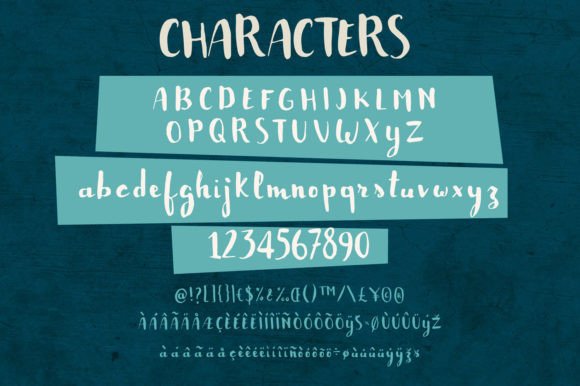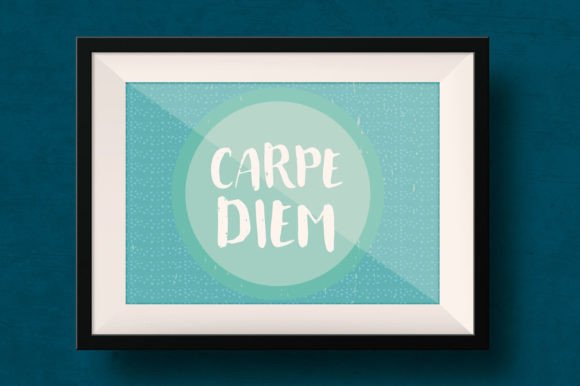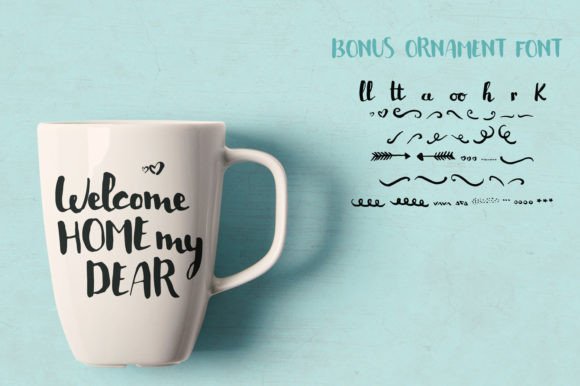
Are you looking for a unique and friendly font to add a personal touch to your DIY projects? Look no further than the Baballotto font, a beautiful handwritten script that is sure to bring your creations to life. In this article, we’ll take a closer look at the Baballotto font, its features, and how you can use it to elevate your designs.
What is Baballotto Font?
Baballotto is an inky brush script font that features heavy downstrokes, skinny loops, and upstrokes, giving it a distinctive and charming look. The font was created using a watercolor brush, which adds to its organic and handcrafted feel. With its unique blend of bold and delicate strokes, Baballotto is the perfect font for designers and crafters who want to add a touch of personality to their work.
Key Features of Baballotto Font
- Inky brush script: Baballotto features a beautiful inky brush script that gives it a handmade look and feel.
- Heavy downstrokes: The font’s heavy downstrokes add a sense of boldness and confidence to your designs.
- Skinny loops and upstrokes: The skinny loops and upstrokes in Baballotto add a touch of elegance and sophistication.
- Watercolor brush creation: The font was created using a watercolor brush, which gives it a unique and organic look.
Baballotto font is versatile and can be used for a wide range of projects, including:
- Diary planners and journals: Add a personal touch to your daily planners and journals with Baballotto’s friendly and approachable script.
- Back to school projects: Make your back to school projects stand out with Baballotto’s bold and playful font.
- Weddings and parties: Use Baballotto to create beautiful wedding invitations, party decorations, and other celebratory materials.
- Festivals and posters: Baballotto’s bold and eye-catching script is perfect for festival posters, flyers, and other promotional materials.
- Blogs and social media posts: Add a touch of personality to your blog posts and social media updates with Baballotto’s friendly and approachable font.
- Clothing and child-related designs: Use Baballotto to create adorable designs for kids’ clothing, toys, and other products.
- Greeting cards and invitations: Create beautiful and personalized greeting cards and invitations with Baballotto’s elegant and sophisticated script.
Why Choose Baballotto Font?
- Unique and distinctive look: Baballotto’s inky brush script and watercolor brush creation give it a unique and distinctive look that will set your designs apart.
- Versatile: Baballotto can be used for a wide range of projects, from diary planners and journals to weddings and parties.
- Easy to read: Despite its bold and playful look, Baballotto is easy to read and understand, making it perfect for body text and headlines.
- Perfect for DIY projects: Baballotto is the perfect font for DIY projects, adding a personal and handcrafted touch to your creations.